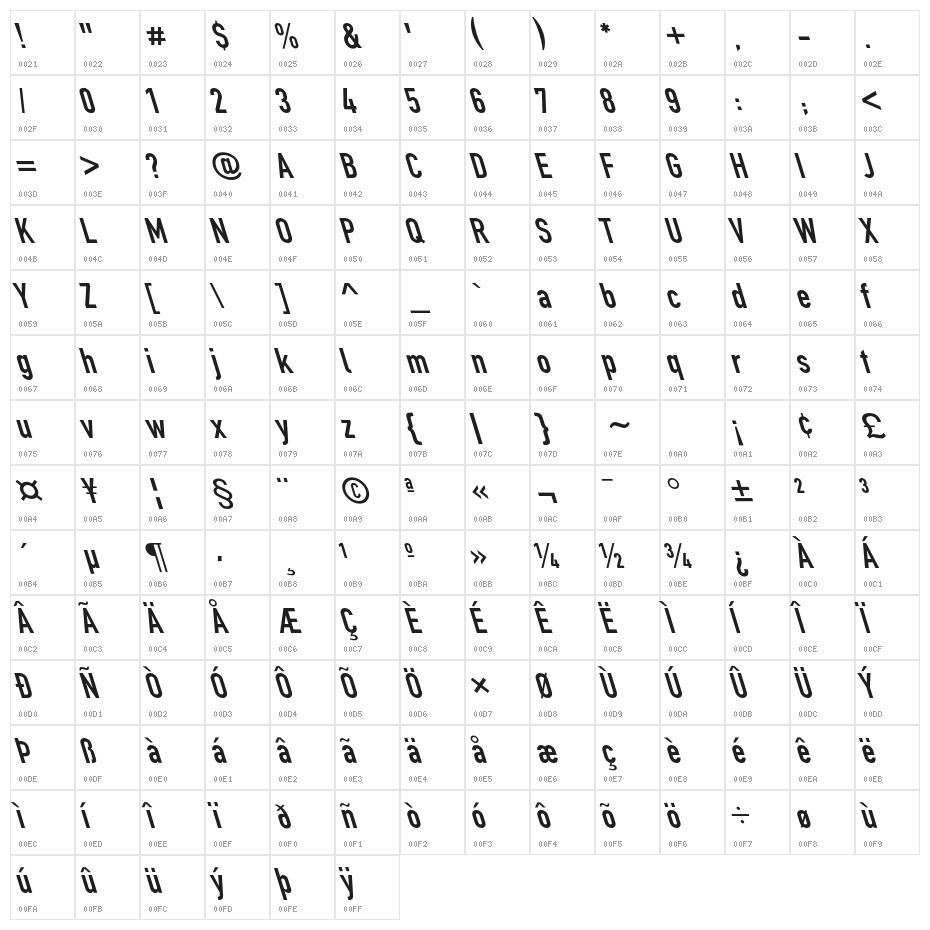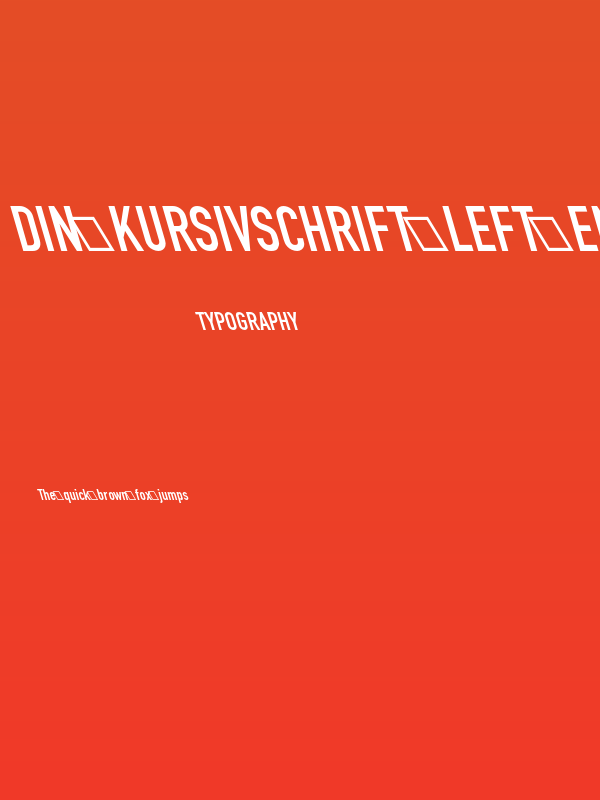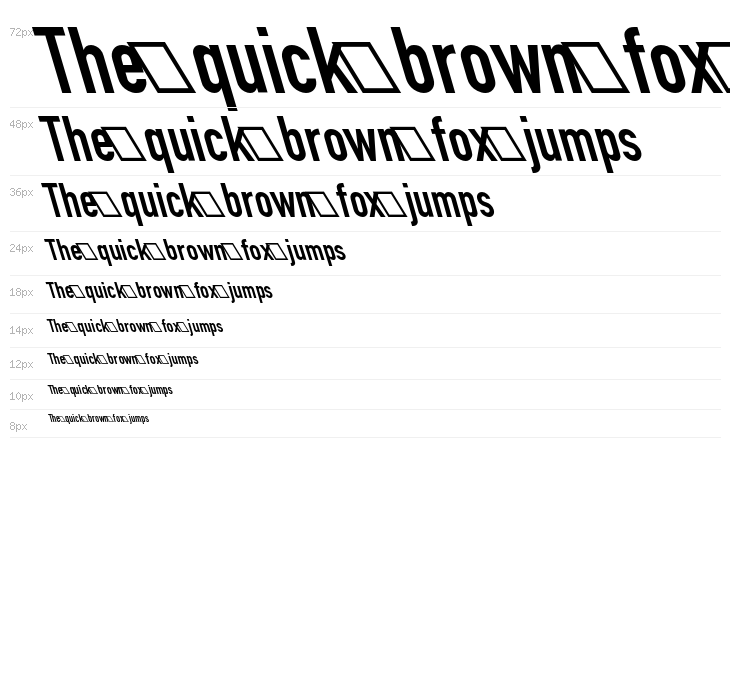
Din Kursivschrift Left Eng Font
Din Kursivschrift Left Eng Description
This font features a bold and modern sans-serif style with a distinct leftward slant, giving it a dynamic and forward-moving appearance. The characters are clean and geometric, with consistent stroke widths that provide a uniform look across all letters and numbers. The uppercase and lowercase letters are well-proportioned, maintaining readability and clarity. The numerals are straightforward and align well with the overall design. Special characters are included, matching the font's bold and slanted style, making it versatile for various uses.
| Use Case | Headlines, Logos, Advertising |
| Proposed Projects | Ideal for branding, advertising, and editorial design projects where a modern and bold statement is needed. |